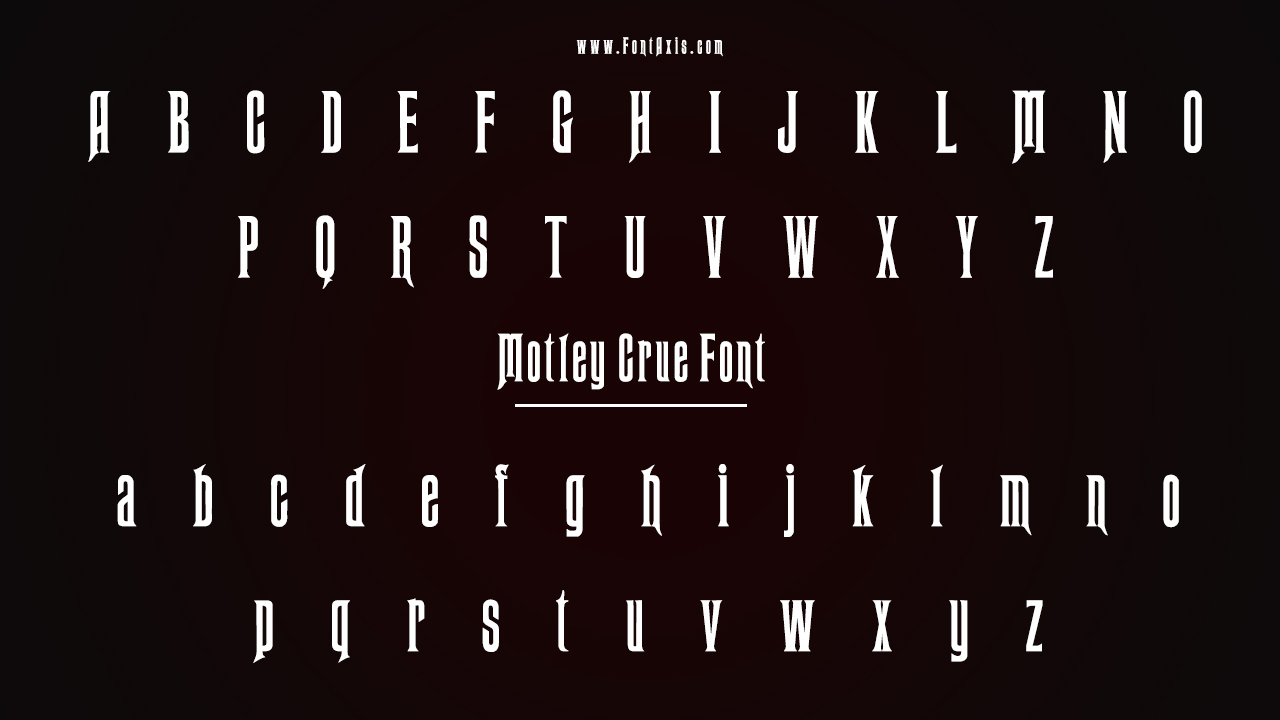
The Motley Crue Font has become synonymous with the legendary heavy metal band Mötley Crüe, comprising iconic members like Vince Neil, Nikki Sixx, Mick Mars, and Tommy Lee.
The font gained popularity through its use in band logos, album covers like Theatre of Pain (1985), and merchandise such as shirts, banners, and posters. This typeface embodies the rebellious and glam-heavy aesthetic of the band’s music and persona.
| Name | Motley Crue Font |
| Style | Hand-drawn, Gothic, Brush Display |
| Designer | Wooden Type Fonts |
| Type | Display |
The Motley Crue Font is inspired by multiple iterations of the band’s logo across different albums and visuals. Similar fonts include variations like:
- Motley Crue Regular
Where Motley Crue Font Is In Use
This font is highly versatile and has been used in the following:
- Band Logos: For albums like Theatre of Pain and Girls, Girls, Girls.
- Merchandise: T-shirts, posters, and banners.
- Digital Graphics: Social media visuals, cover art, and promotions.
- Event Branding: Music festivals and concerts inspired by the glam metal era.
Why The Motley Crue Font Stands Out
The Motley Crue Font is more than a typeface. It’s a visual representation of the band’s bold legacy. Its Gothic and brush-style design captures the glam-metal aesthetic, making it perfect for projects that require a touch of rebellion and theatricality. The font remains a hallmark of the heavy metal culture, from bold album covers to concert posters. Here are some fonts similar to Motley Crue:
The Motley Crue Font is more than just a typeface. It’s a visual representation of the band’s electrifying legacy. This font has cemented its place in heavy metal culture, from bold album covers to merchandise designs. This font is a versatile choice that embodies rebellion, drama, and glam. Its use in heavy metal culture continues to inspire fans and designers alike.
3.What Font Is Closest To The One Used In Theatre Of Pain?
The font used in the Theatre of Pain album cover closely resembles Rubens by Wooden Type Fonts or Midnight Moon, a decorative serif font by Hypefonts. These fonts feature the same dramatic, Gothic-inspired style with elegant flourishes and bold, theatrical lettering that align with the glam metal aesthetic of the album.
The Motley Crue Font can be customized to create unique logos, graphics, or text-based artwork. Many designers use the font as a base and add their own creative touches, such as adjusting the letter spacing, applying gradients, or incorporating textures to enhance the font’s visual impact.
The font’s edgy and unconventional design mirrors Mötley Crüe’s boundary-pushing identity, making it an integral part of their visual branding. Whether on album covers or merchandise, the font communicates the band’s fearless attitude and electrifying energy, further cementing its place in heavy metal culture